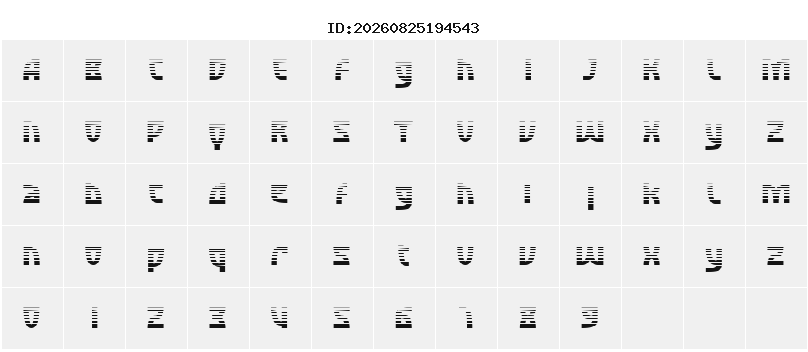
• Font Name: SF Retroesque FX
• Full Font Name: SF Retroesque FX
• Designer: ShyFonts Type Foundry
About SF Retroesque FX.ttf
SF Retroesque FX.ttf is a modern, elegant sans-serif font designed for ultimate readability and visual harmony. Perfect for branding, headlines, web design, and print materials.